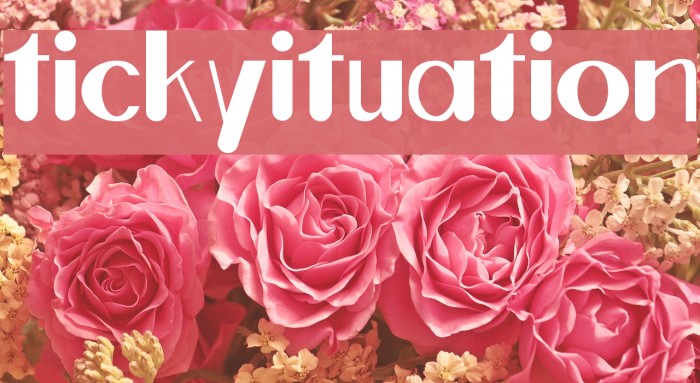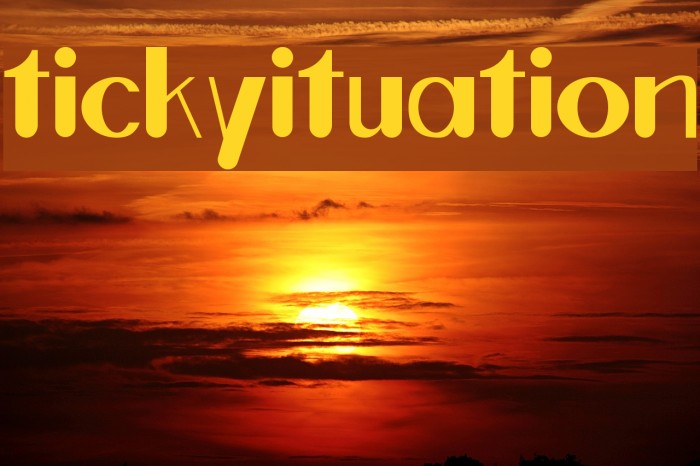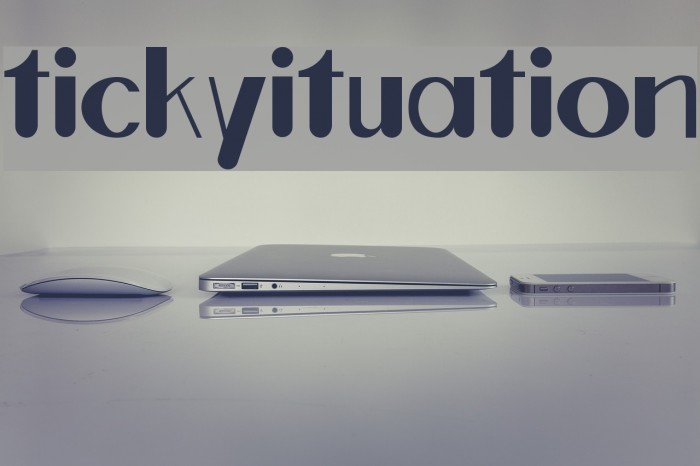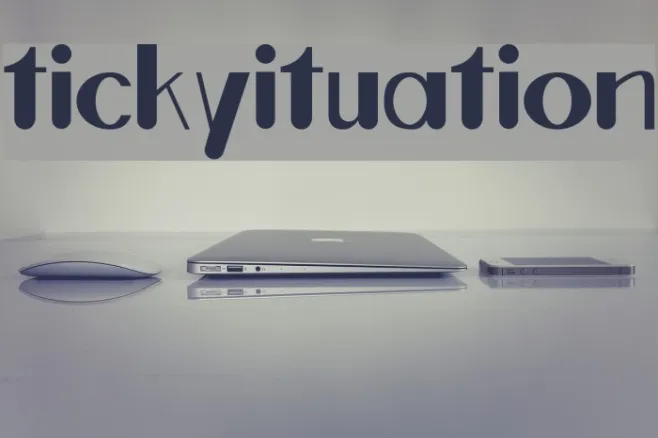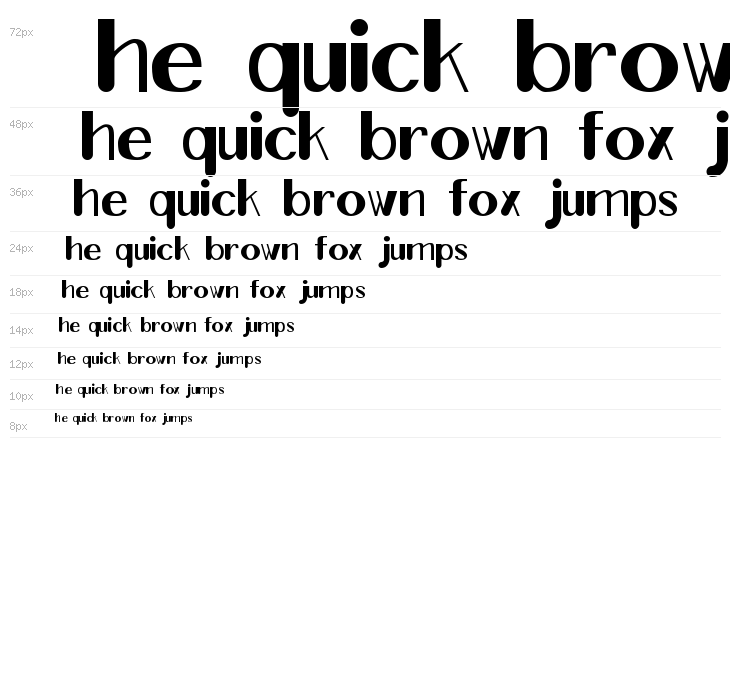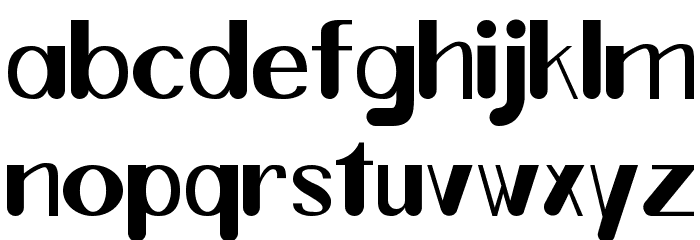
ticky ituation Font
ticky ituation Description
This font features a bold and playful design with a modern twist. The characters are rounded and have a consistent stroke width, giving them a smooth and friendly appearance. The lowercase letters exhibit a unique style with some letters having distinctive tails and curves, adding a touch of whimsy. The overall design is clean and legible, making it suitable for various creative applications. The font's playful nature is balanced with a sense of modernity, making it versatile for both digital and print media.
| Proposed Projects | Ideal for children's books, playful branding, modern posters, and creative digital content. |